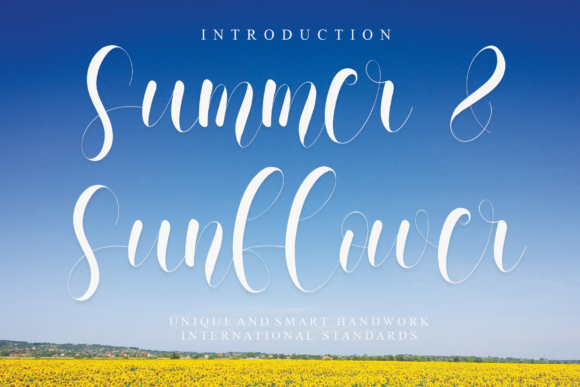
Dive into the world of elegance and grace with Summer and Sunflower, the captivating script font that will transform your creative visions into stunning realities. Experience the beauty of thin lettered artistry, meticulously crafted to evoke a sense of timeless charm and sophistication.
Picture this: a wedding invitation adorned with the flowing lines of Summer and Sunflower, setting the tone for an unforgettable celebration. Or perhaps an art piece graced with the font's delicate strokes, captivating the hearts of all who behold it. Let your imagination soar as you explore the endless possibilities that await you with this enchanting font.
Step into the spotlight and unleash your creativity with Summer and Sunflower. Design eye-catching social media posts that demand attention, captivating your audience with their refined aesthetics. Craft logos that radiate elegance and professionalism, leaving a lasting impression on clients and customers alike. The possibilities are limitless, and the results are sure to inspire awe and admiration.
With Summer and Sunflower, you hold the key to unlocking a world of beauty and sophistication. Embrace the font's allure and watch as your designs blossom into works of art. Let your imagination flourish and let the world witness the magic that unfolds when creativity meets grace.